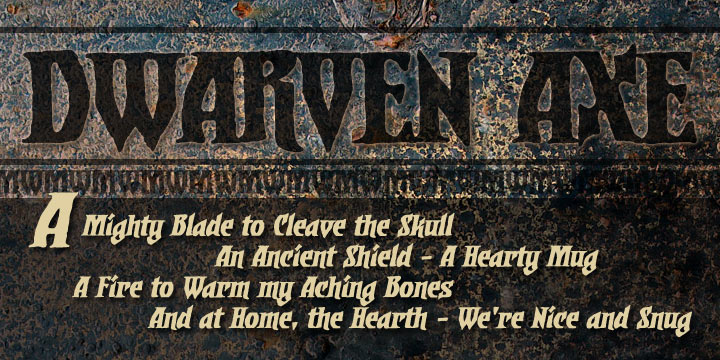
Dwarven Axe BB
Font Family by Blambot
Dwarven Axe is a weathered, serif title font with grit and stamina.
It's the rusty sign outside an inn full of hobbits?it's the worn brass letters on the cover of a wizard's spellbook?it's the inscription on the battle axe hanging over the dwarf king's hearth.
Contains upper and lowercase characters, with italic included, and a treasure trove of European characters.